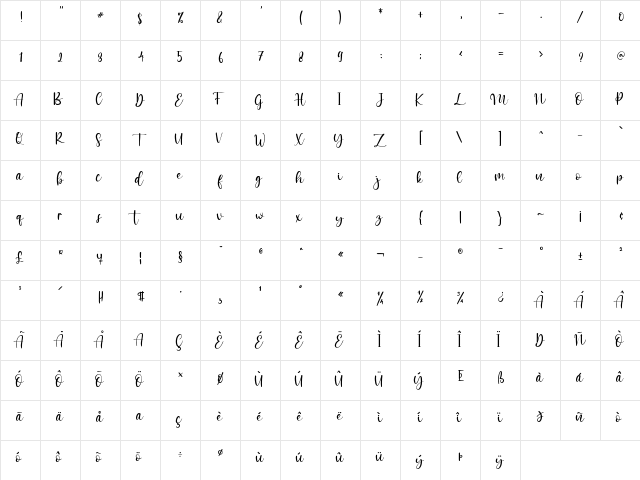
Faster Bottom Regular
Design Context for Faster Bottom Typeface
Faster Bottom takes a measured approach to typography — its balanced proportions and neutral character make it a reliable workhorse for both digital and print work.
Pro Tip: Use Faster Bottom in both headline and body roles to test its range before committing to a single application.